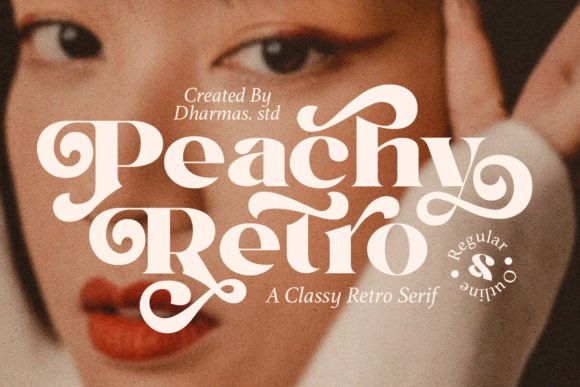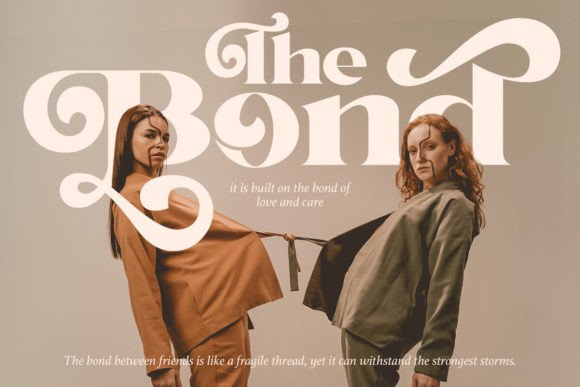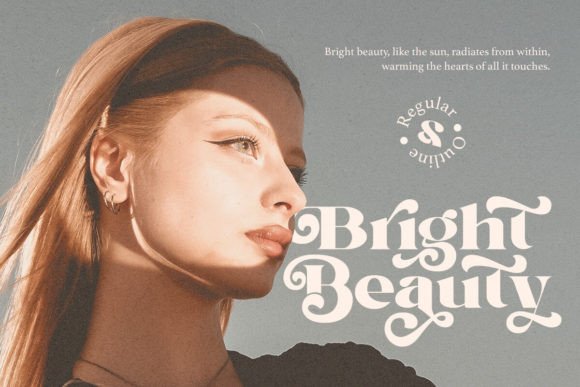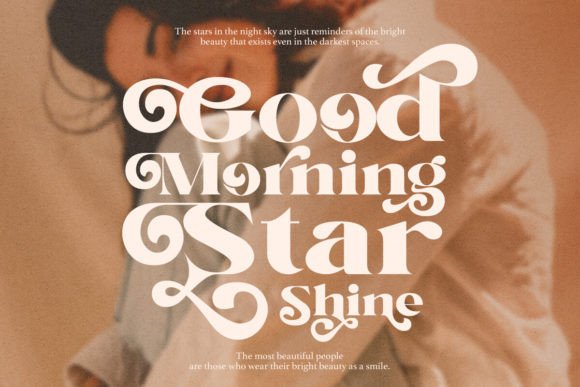
Peachy Retro Font: Nostalgic Serif for Branding & Logo Design
About the Peachy Retro Font
Step up your design game with Peachy Retro Font, a font that exudes confidence and style. Introducing Peachy Retro – a brand new serif with all the nostalgic vibes!
I’ve started seeing classic, tightly-spaced serifs of the 80s & 90s making a comeback, and wanted to create the perfect one for you too!
Peachy Retro is a beautifully nostalgic upper and lowercase typeface and has 191 Special Alternates that look incredible in both large and small settings as a display and body text.
Peachy Retro’s strong, yet friendly personality makes it ideal for headlines, logos, and short-form text in branding materials and posters. Its nostalgic charm works well for projects evoking a retro aesthetic, from vintage-inspired apparel to coffee shop branding. However, the tight spacing and relatively high x-height might prove less legible in large blocks of body text or UI applications.
For optimal pairings, consider balancing Peachy Retro’s boldness with a clean sans-serif like Montserrat for body text or a geometric sans-serif like Futura for a more modern feel. A script font such as Great Vibes could add a touch of vintage elegance to layouts where Peachy Retro is used for display purposes.
Ultimately, Peachy Retro’s character is best described as bold yet approachable, lending itself to brands seeking a nostalgic yet contemporary image.
Peachy Retro Font Usage Examples
Peachy Retro Font Example